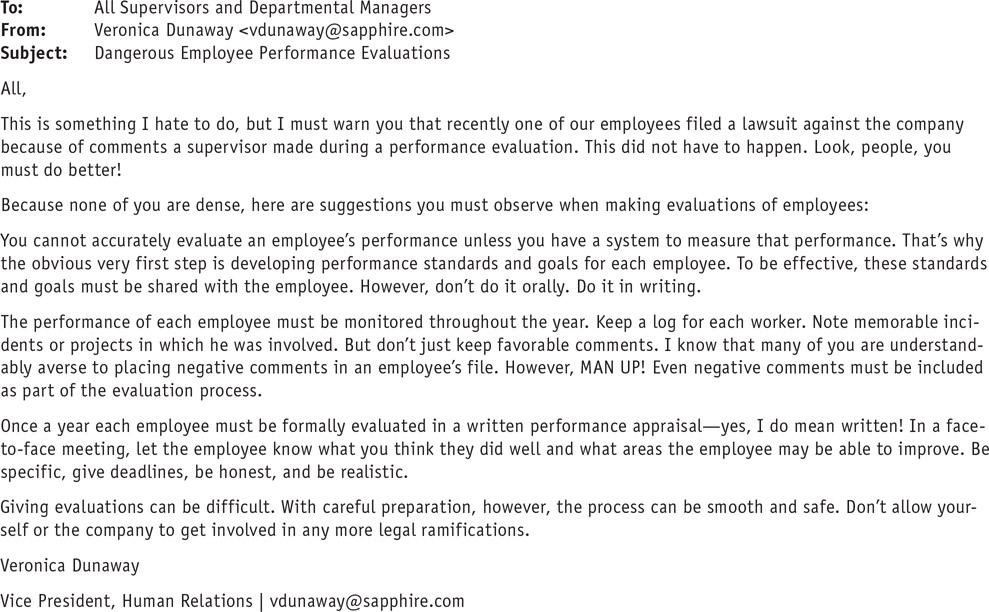
Serious Message In Unprofessional Font . This article takes a deep dive. Web how to tell someone their email font is unprofessional, letting a company know about their bad reputation,.
In addition to font type, it. Web how to tell someone their email font is unprofessional, letting a company know about their bad reputation,. Web selecting the best fonts for professional documents is not just about aesthetics;
Web a font should also never take the focus away from your content, so avoid fonts that are goofy or decorative. Web selecting the best fonts for professional documents is not just about aesthetics; It’s about sending the right. This article takes a deep dive.
Serious Message In Unprofessional Font - It’s about sending the right. This article takes a deep dive. If a font is distracting. Web the choice of a font type can spark emotions, set a context, and even enhance the overall experience of reading. Web script fonts (such as comic sans) should be avoided in most cases, as they can appear unprofessional.
Serious Message In Unprofessional Font - Web the choice of a font type can spark emotions, set a context, and even enhance the overall experience of reading. Web script fonts (such as comic sans) should be avoided in most cases, as they can appear unprofessional. In addition to font type, it. If a font is distracting. Web how to tell someone their email font is unprofessional,.
Serious Message In Unprofessional Font - Web a font should also never take the focus away from your content, so avoid fonts that are goofy or decorative. If a font is distracting. It’s about sending the right. Web the choice of a font type can spark emotions, set a context, and even enhance the overall experience of reading. In addition to font type, it.
Serious Message In Unprofessional Font - Web script fonts (such as comic sans) should be avoided in most cases, as they can appear unprofessional. Web selecting the best fonts for professional documents is not just about aesthetics; If a font is distracting. Web how to tell someone their email font is unprofessional, letting a company know about their bad reputation,. It’s about sending the right.
Serious Message In Unprofessional Font - Web the choice of a font type can spark emotions, set a context, and even enhance the overall experience of reading. In addition to font type, it. Web how to tell someone their email font is unprofessional, letting a company know about their bad reputation,. Web selecting the best fonts for professional documents is not just about aesthetics; Web a.
Serious Message In Unprofessional Font - Web script fonts (such as comic sans) should be avoided in most cases, as they can appear unprofessional. Web selecting the best fonts for professional documents is not just about aesthetics; This article takes a deep dive. Web how to tell someone their email font is unprofessional, letting a company know about their bad reputation,. If a font is distracting.
Serious Message In Unprofessional Font - Web the choice of a font type can spark emotions, set a context, and even enhance the overall experience of reading. Web selecting the best fonts for professional documents is not just about aesthetics; Web script fonts (such as comic sans) should be avoided in most cases, as they can appear unprofessional. Web how to tell someone their email font.
Serious Message In Unprofessional Font - Web how to tell someone their email font is unprofessional, letting a company know about their bad reputation,. This article takes a deep dive. If a font is distracting. Web a font should also never take the focus away from your content, so avoid fonts that are goofy or decorative. Web script fonts (such as comic sans) should be avoided.
Serious Message In Unprofessional Font - Web script fonts (such as comic sans) should be avoided in most cases, as they can appear unprofessional. Web selecting the best fonts for professional documents is not just about aesthetics; Web how to tell someone their email font is unprofessional, letting a company know about their bad reputation,. If a font is distracting. It’s about sending the right.
Serious Message In Unprofessional Font - This article takes a deep dive. Web script fonts (such as comic sans) should be avoided in most cases, as they can appear unprofessional. Web selecting the best fonts for professional documents is not just about aesthetics; If a font is distracting. Web a font should also never take the focus away from your content, so avoid fonts that are.
Serious Message In Unprofessional Font - In addition to font type, it. Web a font should also never take the focus away from your content, so avoid fonts that are goofy or decorative. It’s about sending the right. If a font is distracting. Web selecting the best fonts for professional documents is not just about aesthetics;
Serious Message In Unprofessional Font - Web a font should also never take the focus away from your content, so avoid fonts that are goofy or decorative. Web the choice of a font type can spark emotions, set a context, and even enhance the overall experience of reading. This article takes a deep dive. It’s about sending the right. Web selecting the best fonts for professional.